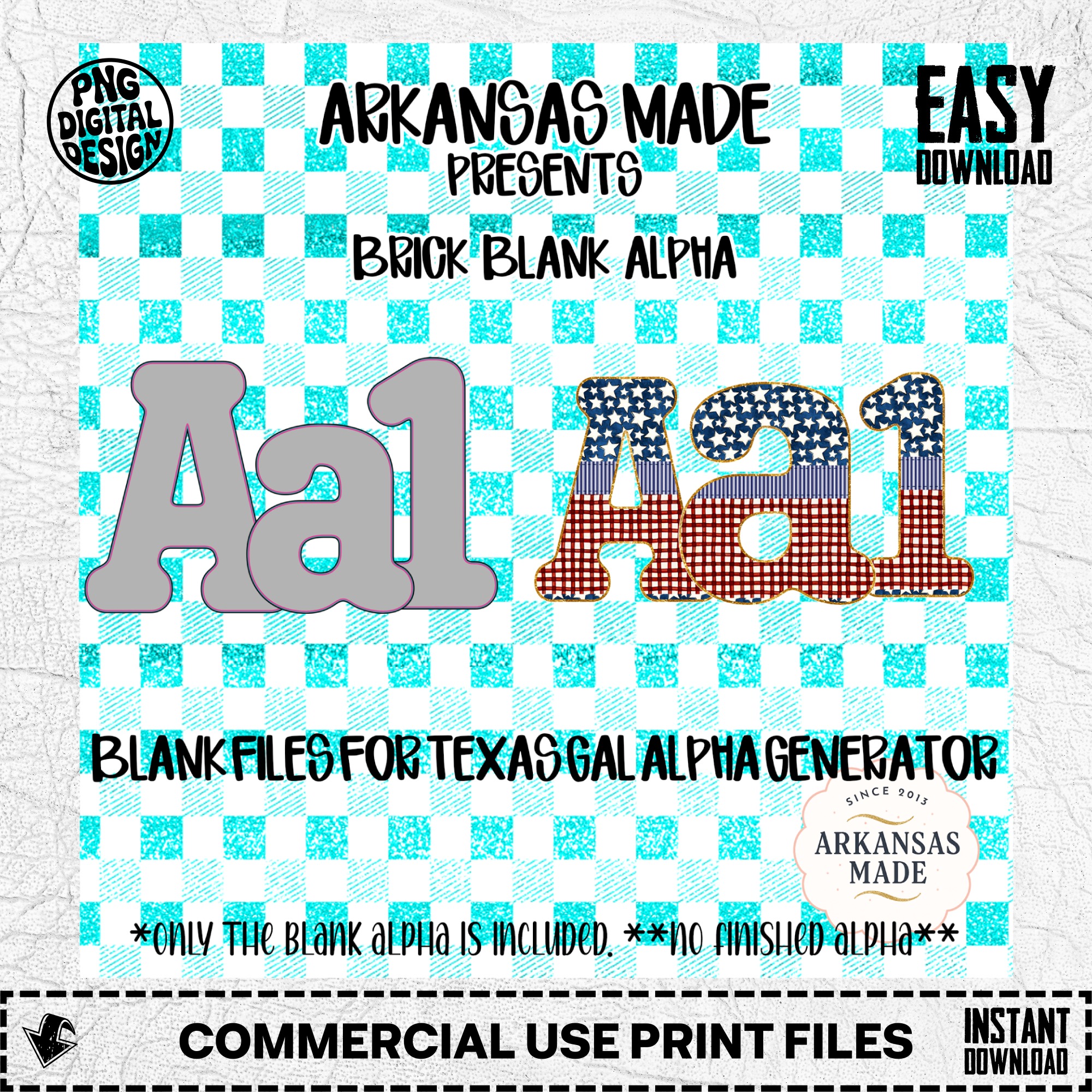
Unlock endless creativity with our Brick Blank Alpha PNGs, designed specifically for the Texas Gal Alpha Generator. Perfect for patriotic digital projects! This versatile digital alphabet and number set offers a classic brick-style blank base, alongside a ready-to-use Americana design featuring stars, stripes, and plaid with faux gold glitter accents. Ideal for sublimation, t-shirt designs, tumblers, and custom crafts, it empowers DIY creators and small businesses. Celebrate national holidays like the 4th of July, Memorial Day, or simply express your patriotic spirit with personalized items for family and friends.